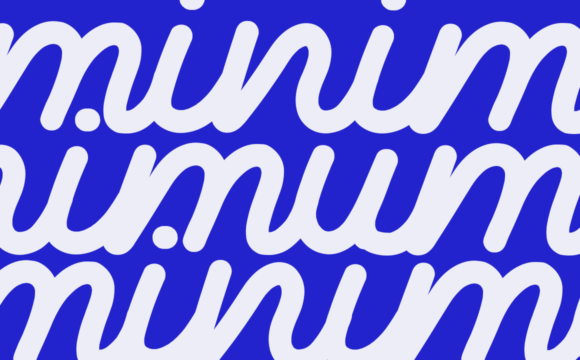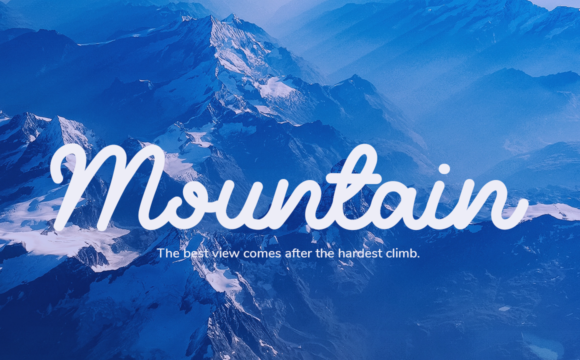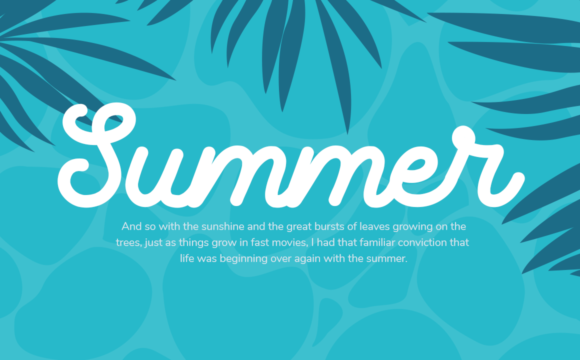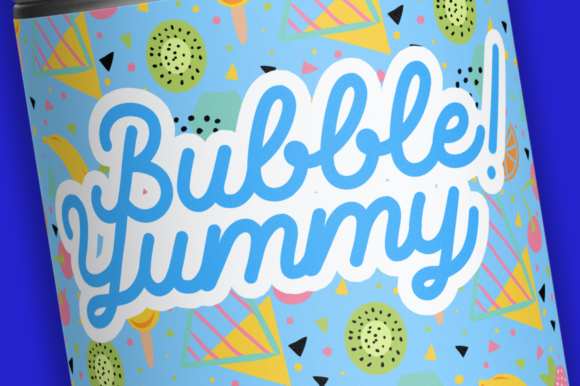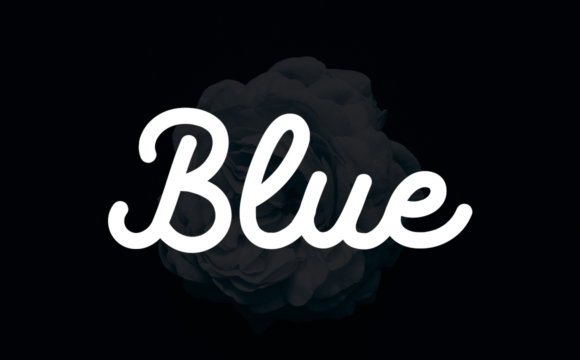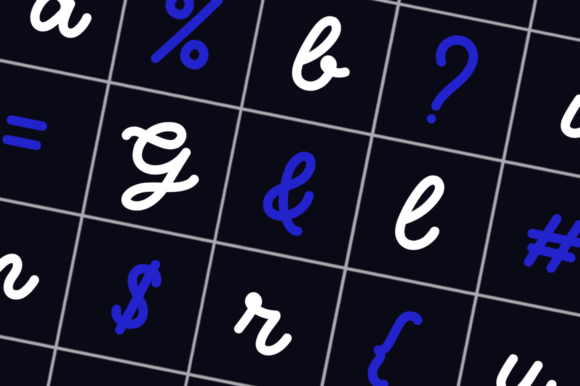
Bumbbled Font: The Perfect Handwritten Font for DIY Projects
Are you tired of using the same old fonts for your DIY projects? Do you want to add a personal touch to your crafts and make them stand out? Look no further than the Bumbbled font! This gorgeous and unique handwritten font is the result of a stunning pairing of a brush pen and pencil, making it look incredibly endearing and authentic.
The Story Behind Bumbbled Font
The Bumbbled font is a one-of-a-kind creation that showcases the beauty of handmade typography. The font is crafted using a combination of a brush pen and pencil, which gives it a distinctive and charming look. The result is a font that looks like it was written with love and care, making it perfect for DIY projects that require a personal touch.
What Makes Bumbbled Font So Special?
So, what makes the Bumbbled font so special? Here are just a few reasons why designers and crafters are falling in love with this unique font:
• Handwritten with love: The Bumbbled font is handwritten with a brush pen and pencil, giving it a warm and authentic feel.
• Unique and quirky: The font has a distinctive and quirky look that sets it apart from other fonts.
• Perfect for DIY projects: The Bumbbled font is ideal for DIY projects, such as crafting, scrapbooking, and journaling.
• Easy to read: Despite its handmade look, the Bumbbled font is easy to read and understand.
How to Use Bumbbled Font in Your DIY Projects
Using the Bumbbled font in your DIY projects is easy! Here are a few ideas to get you started:
• Crafting: Use the Bumbbled font to add a personal touch to your crafting projects, such as card making, gift tagging, and scrapbooking.
• Journaling: Add the Bumbbled font to your journaling pages for a unique and eye-catching look.
• Sign making: Use the Bumbbled font to create beautiful and personalized signs for your home or office.
Tips for Working with Bumbbled Font
Here are a few tips for working with the Bumbbled font:
• Use it sparingly: The Bumbbled font is best used sparingly, as it can be overwhelming if used too much.
• Pair it with other fonts: Experiment with pairing the Bumbbled font with other fonts to create a unique and interesting look.
• Experiment with colors: Try using different colors with the Bumbbled font to add an extra pop of personality to your DIY projects.
The Bumbbled font is a unique and gorgeous handwritten font that is perfect for DIY projects. Its distinctive and charming look makes it a standout from other fonts, and its ease of use makes it accessible to designers and crafters of all levels. Whether you’re looking to add a personal touch to your crafting projects, journaling pages, or signs, the Bumbbled font is the perfect choice. So why not give it a try and see the magic it can bring to your DIY projects?